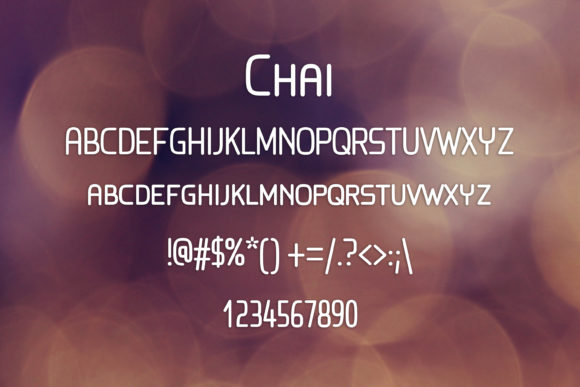
Introducing Chai Font: Elevate Your Designs with Elegance and Clarity
In the world of typography, a font can make or break a design. It’s the foundation upon which the entire visual identity is built. For designers and crafters looking for a font that exudes elegance, smoothness, and clarity, look no further than Chai Font. This stunning display font is designed to deliver your message with confidence, legibility, and precision, making it an ideal choice for a wide range of design projects.
The Essence of Chai Font
Chai Font is characterized by its incredibly clean style, which sets it apart from other fonts in the market. Its smoothly rounded edges and elegant lines create a sophisticated look that’s perfect for designs that require a touch of refinement. Whether you’re working on a branding project, a website, or a marketing campaign, Chai Font is sure to make a lasting impression.
Key Features of Chai Font
- Elegant and Smoothly Rounded: Chai Font boasts an elegant and smoothly rounded design that gives it a unique and sophisticated look.
- Incredibly Clean Style: The font’s clean style ensures that your message is delivered with clarity and precision, making it easy to read and understand.
- Confidence and Legibility: Chai Font is designed to deliver your message with confidence and legibility, making it perfect for designs that require a clear and concise communication.
- Versatility: This display font is versatile and can be used for a wide range of design projects, from branding and advertising to web design and crafting.
Why Choose Chai Font?
With so many fonts available in the market, why choose Chai Font? Here are a few compelling reasons:
- Unique and Sophisticated Look: Chai Font’s elegant and smoothly rounded design gives it a unique and sophisticated look that sets it apart from other fonts.
- Improved Readability: The font’s clean style and clear lines ensure that your message is delivered with precision and clarity, making it easy to read and understand.
- Time-Saving: With Chai Font, you can save time and effort in creating custom designs from scratch. Its versatility and ease of use make it a great addition to your design toolkit.
- Perfect for Designers and Crafters: Whether you’re a professional designer or a crafter, Chai Font is an excellent choice for anyone looking for a reliable and elegant font.
How to Use Chai Font in Your Designs
Using Chai Font in your designs is easy and straightforward. Here are a few tips to get you started:
- Pair it with Other Fonts: Chai Font pairs well with other fonts, making it easy to create a unique and harmonious design.
- Experiment with Different Sizes: The font’s clean style and clear lines make it suitable for use at different sizes, from large headings to smaller body text.
- Use it for Headings and Titles: Chai Font is perfect for headings and titles, where its elegant and sophisticated look can make a lasting impression.
In conclusion, Chai Font is an excellent addition to any designer’s or crafter’s toolkit. Its elegant and smoothly rounded design, incredibly clean style, and versatility make it perfect for a wide range of design projects. Whether you’re looking to create a sophisticated brand identity, a stunning website, or a beautiful craft project, Chai Font is sure to deliver your message with confidence, legibility, and clarity.